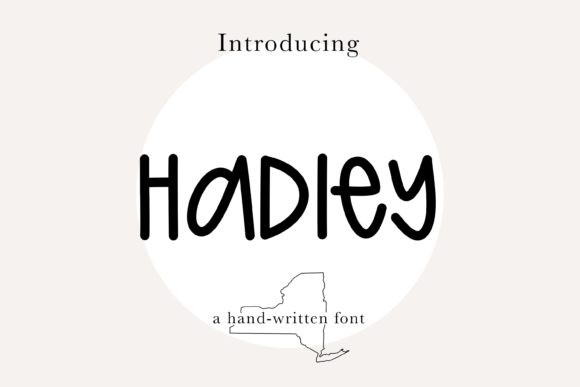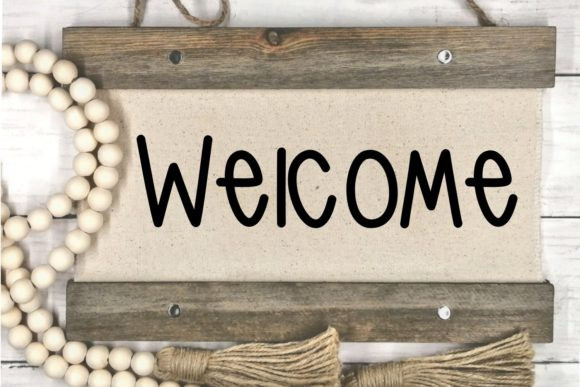
Hadley Font
Hadley is a fun, mixed capital handwritten sans serif font. Simple and easy to use, this font will be very beautiful if you mix it with your various craft designs.